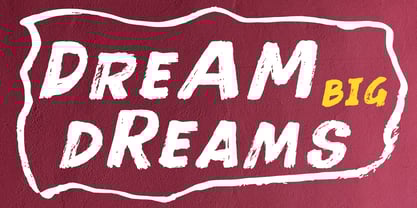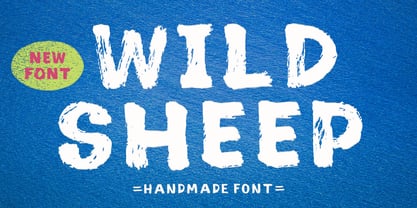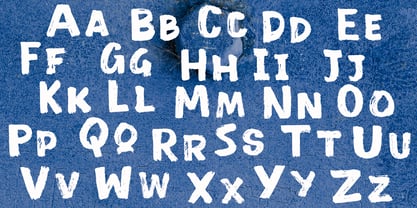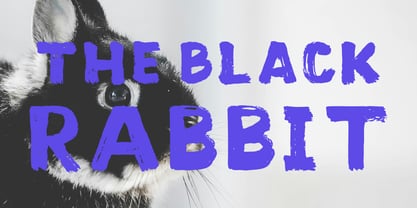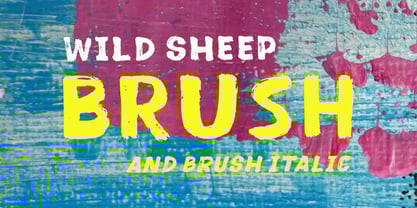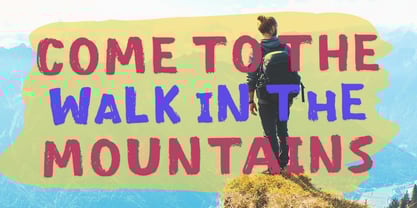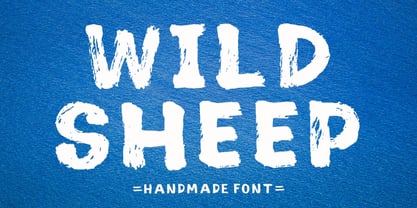
Wild Sheep
by Stripes Studio
The Wild Sheep Font Family was designed by Yur Lis and published by Stripes Studio. Wild Sheep contains 2 styles and family package options.
Wild Sheep is a playful and expressive handwritten brush font, created directly from my own handwriting. This font brings a warm and personal touch to any design project with its natural flow and unique character. It comes in 2 versatile styles to suit a variety of creative needs:
Normal – The original brush style with a smooth, hand-painted look.
Normal Slant – A slightly slanted version for a more dynamic feel.
With its authentic brush texture and hand-drawn personality, Wild Sheep adds a creative touch and heart to any project.